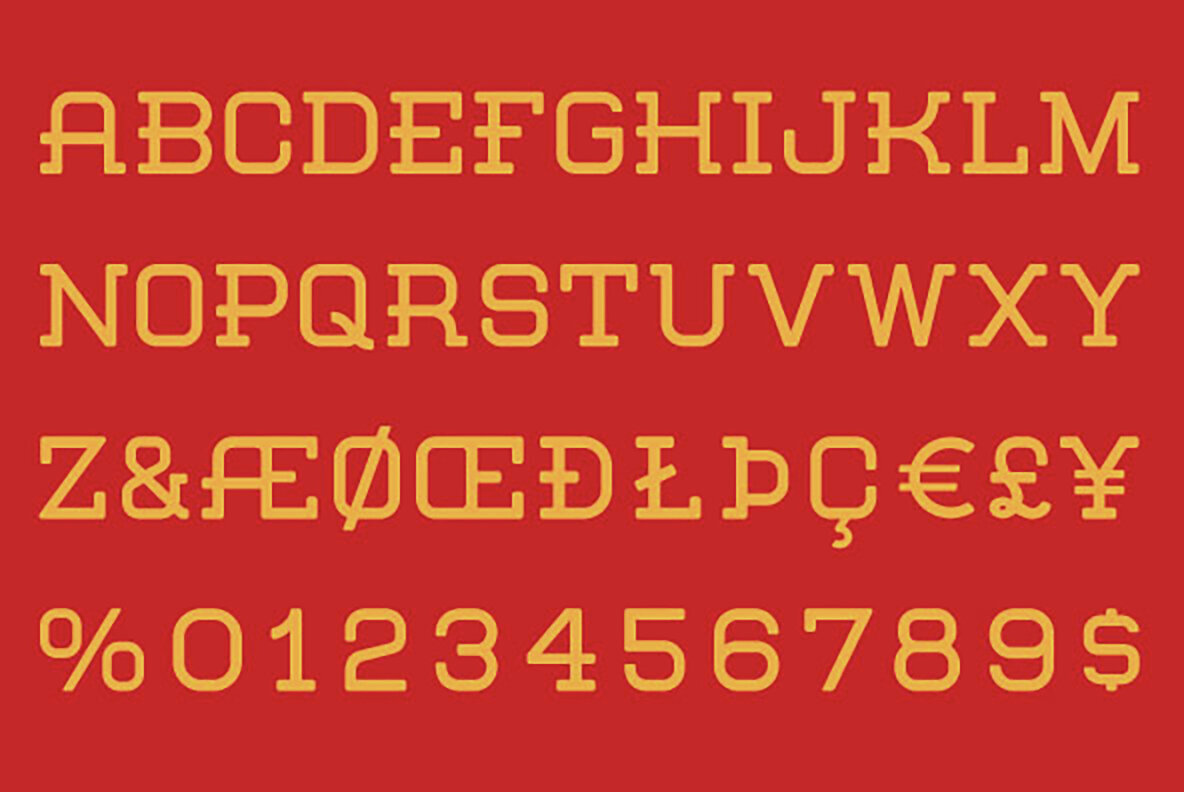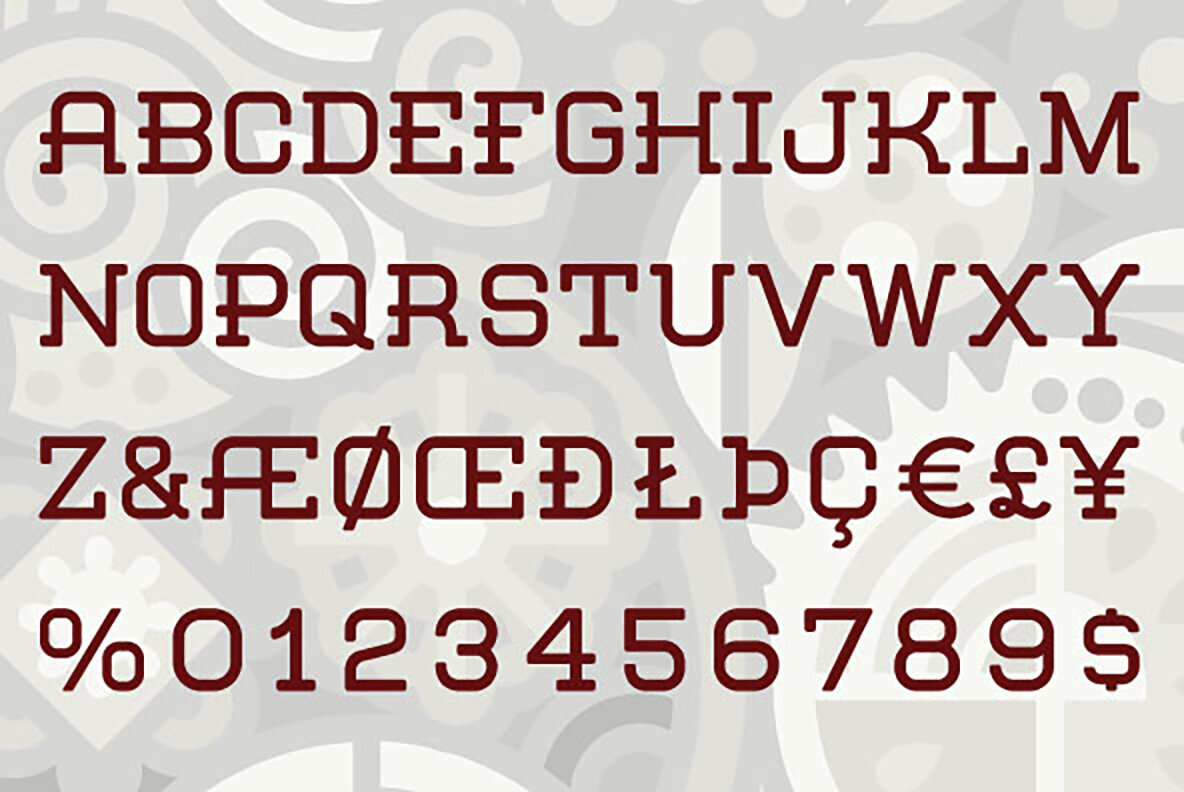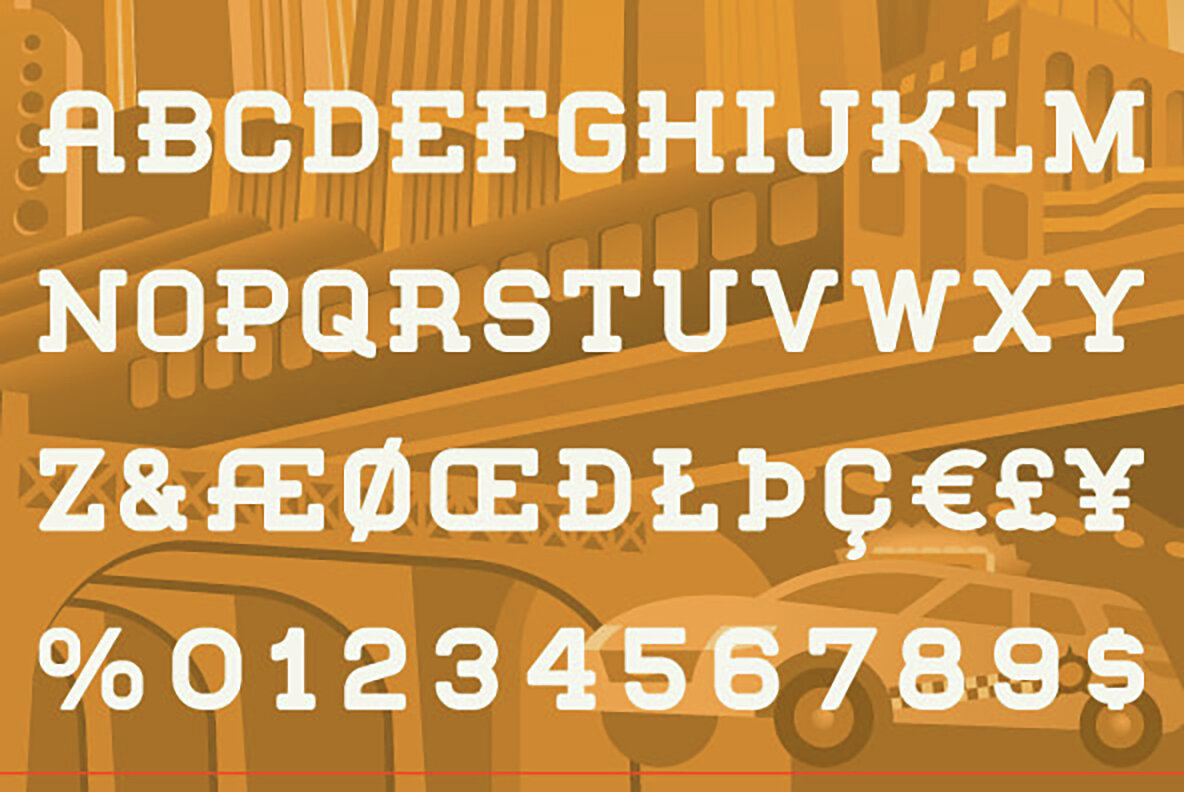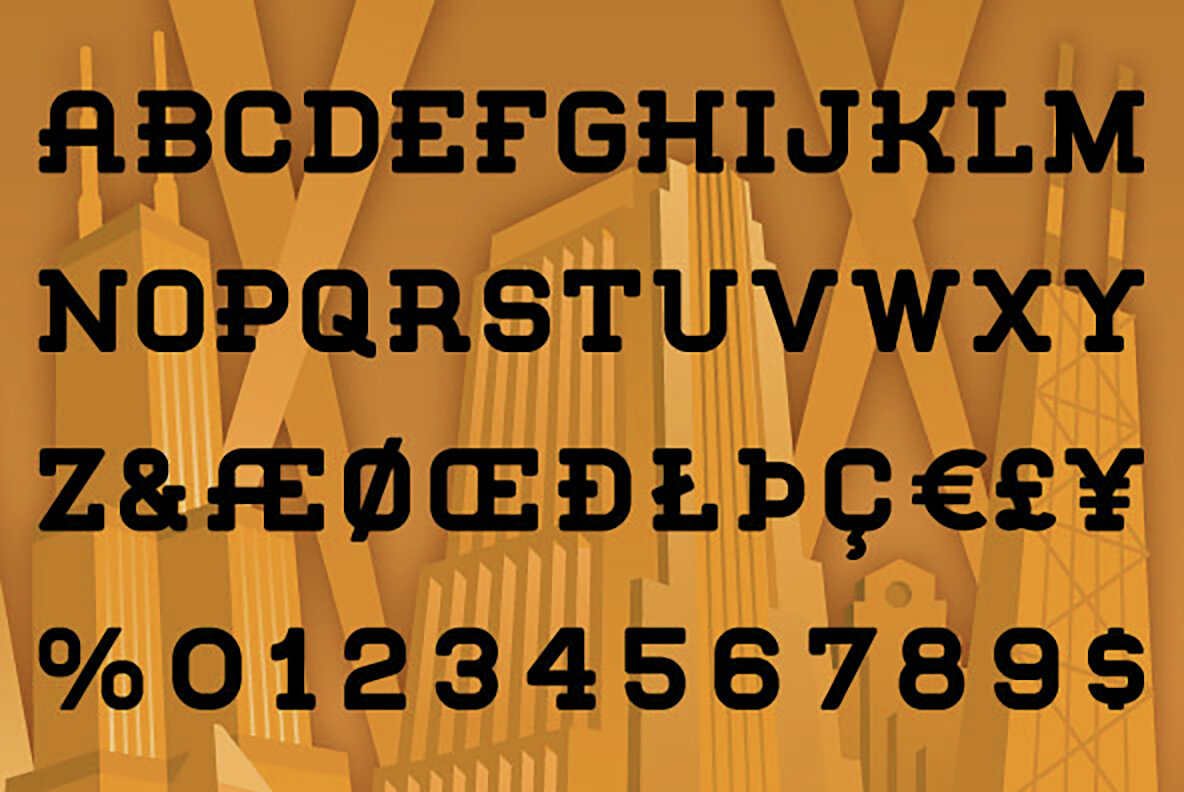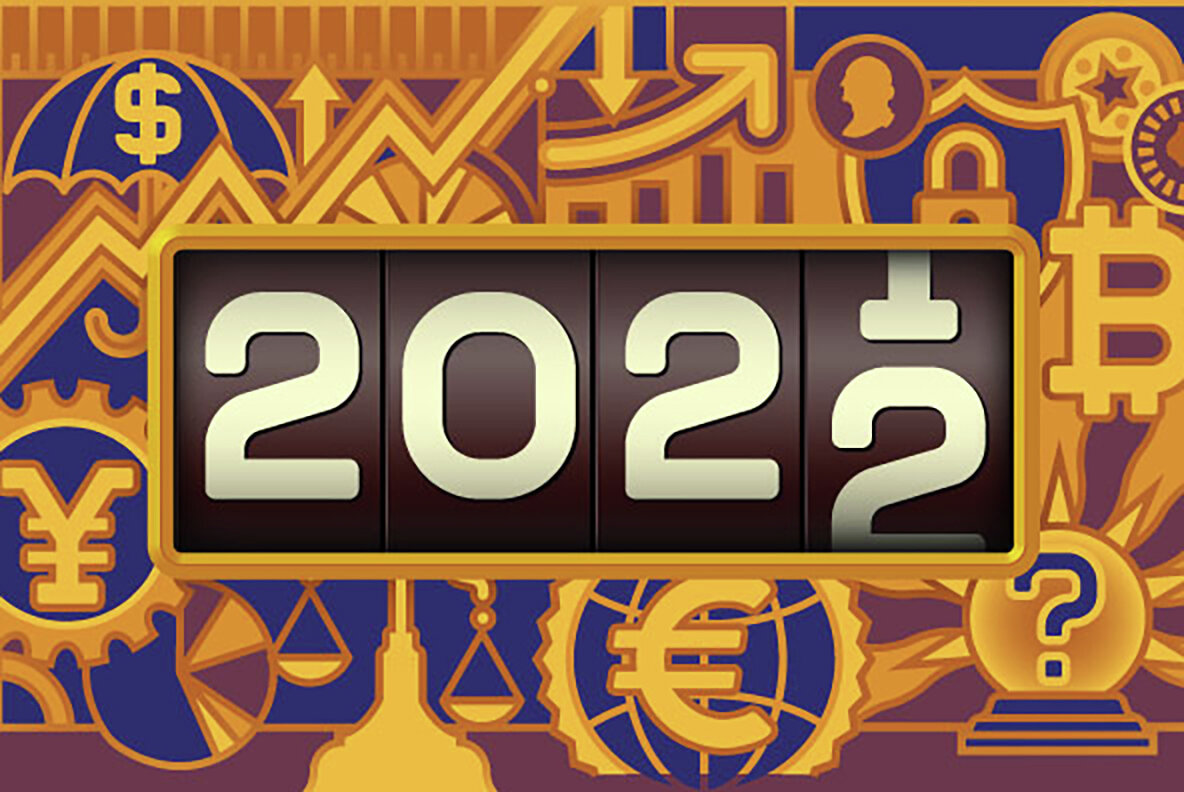
Mr Porter Font
Mr Porter Pale
Mr Porter Stout
A robust, mono-weight typeface with gently rounded slab serifs, Mr. Porter harkens back to celebrated roots in late 17th Century England. Not for the meek or faint-of-heart, it lends a nutty, chocolaty, toffee flavor to both a stout and pale variety, with lots of malty goodness. Rich and full-flavored with notes of coffee, licorice and molasses, it promises delightful pairings for an infinite variety of typographic solutions.